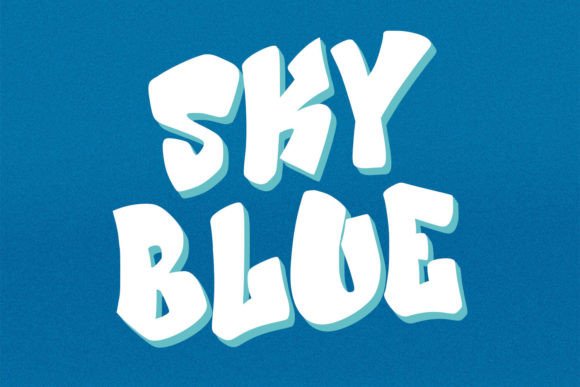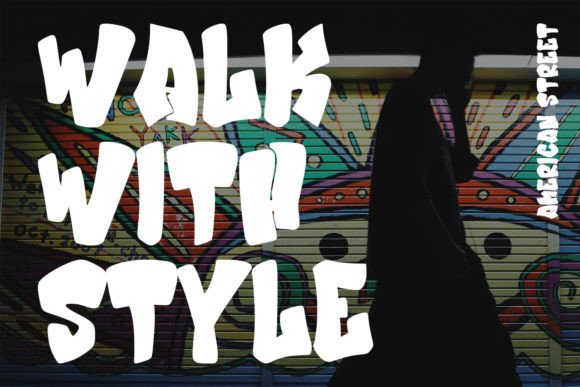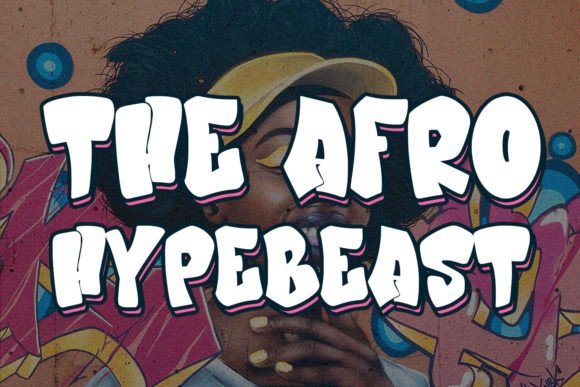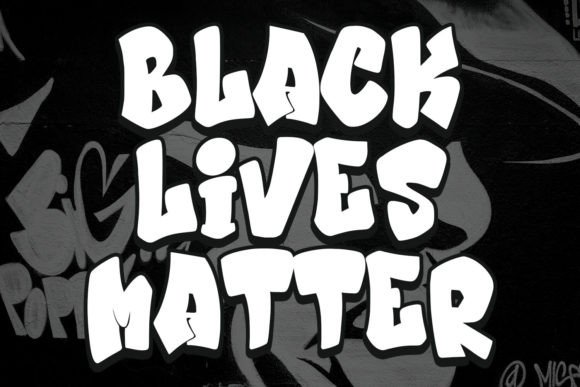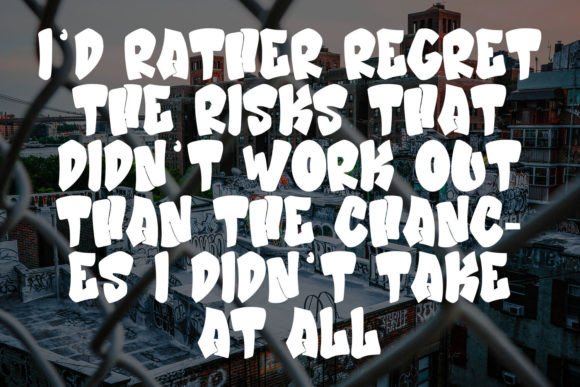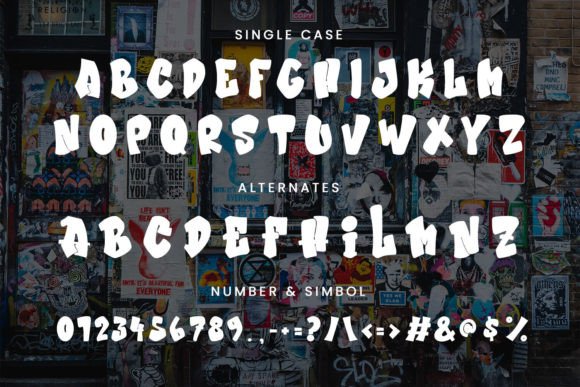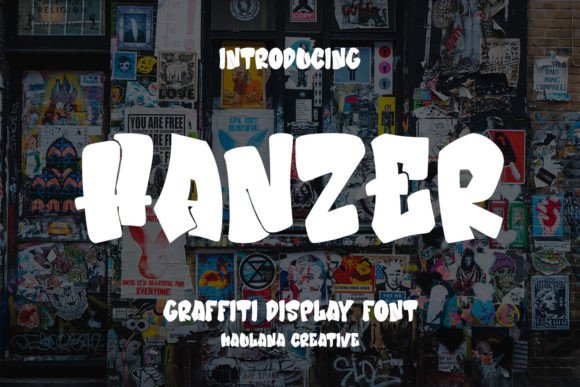
Unleash Your Creativity with Hanzer Font: The Ultimate Urban Artistry Display Font
Are you a designer, crafter, or artist looking for a font that embodies the spirit of urban artistry and graffiti culture? Look no further than Hanzer Font, a display font that exudes raw energy and street style. With its edgy vibe and rebellious charm, Hanzer Font is the perfect addition to your design toolkit, allowing you to create stunning logos, posters, and urban-themed projects that pop with authenticity.
The Essence of Graffiti Culture in Every Character
Hanzer Font is more than just a font – it’s an experience. Inspired by the vibrant world of graffiti, this display font captures the essence of urban artistry, infusing every character with a sense of rebellion and nonconformity. Whether you’re designing a logo for a streetwear brand, creating a poster for an urban art exhibition, or crafting a social media graphic that speaks to the youth, Hanzer Font is the perfect choice.
With Hanzer Font, you can add a touch of authenticity to your designs, transporting your audience to the streets and alleys of urban landscapes. The font’s bold, expressive strokes and unique character shapes evoke the raw energy of graffiti, making your designs stand out in a crowded digital landscape.
One of the standout features of Hanzer Font is its PUA (Private Use Area) encoding, which allows you to access a vast array of glyphs and ligatures with ease. This means you can experiment with different character combinations, creating unique and complex designs that showcase your creativity.
With PUA encoding, you can:
- Access a wide range of alternative characters and glyphs
- Create custom ligatures and character combinations
- Experiment with different font styles and variations
This level of flexibility and creative freedom makes Hanzer Font an ideal choice for designers and crafters who want to push the boundaries of typography and design.
Perfect for Logos, Posters, and Urban-Themed Projects
Hanzer Font is a versatile display font that can be used for a wide range of design projects, including:
- Logos and branding materials for streetwear brands, urban art collectives, and music labels
- Posters and flyers for urban art exhibitions, concerts, and festivals
- Social media graphics and advertisements for urban-themed campaigns
- Packaging and label design for streetwear and urban-inspired products
Whether you’re working on a commercial project or a personal creative endeavor, Hanzer Font is the perfect choice for adding an edgy, urban vibe to your designs.
Why Choose Hanzer Font?
So why choose Hanzer Font over other display fonts on the market? Here are just a few reasons:
- Unique and authentic urban style: Hanzer Font captures the essence of graffiti culture and urban artistry, giving your designs a rebellious and authentic touch.
- High-quality and versatile: With its PUA encoding and wide range of glyphs and ligatures, Hanzer Font is a versatile and creative tool for designers and crafters.
- Easily readable and impactful: Despite its bold and edgy style, Hanzer Font is surprisingly readable, making it perfect for use in a variety of design applications.
In conclusion, Hanzer Font is a must-have display font for designers and crafters who want to add an urban, edgy vibe to their designs. With its unique and authentic style, high-quality encoding, and versatility, Hanzer Font is the perfect choice for anyone looking to unleash their creativity and capture the essence of graffiti culture in their work.